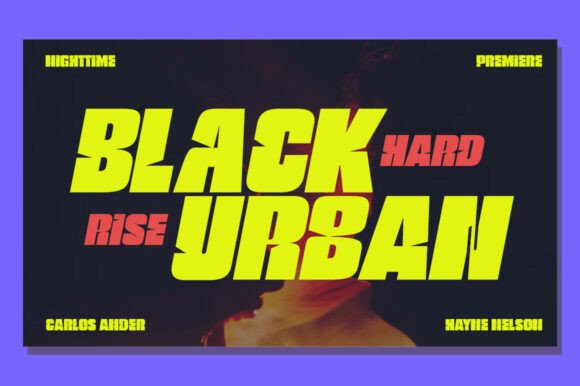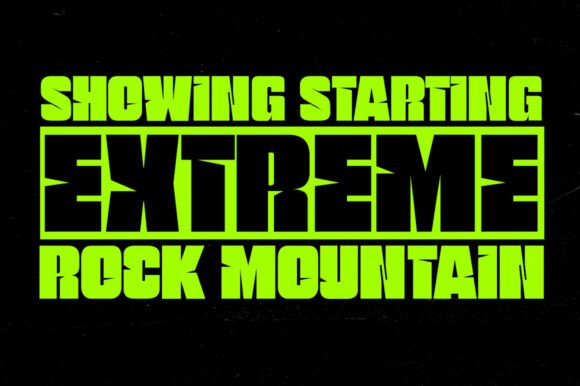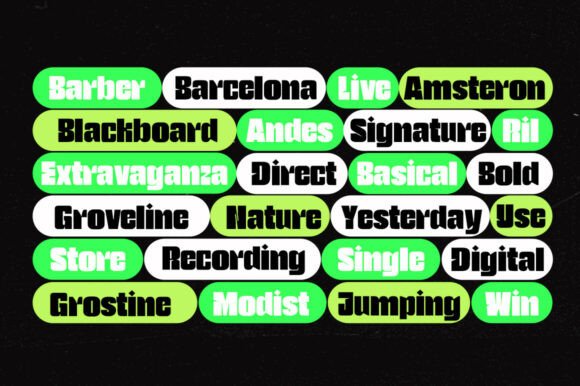
Introduction to Ravedo Font
Have you ever been in the middle of a creative project, searching for the perfect font to bring your vision to life? You’ve scrolled through countless design resources, but nothing seems to capture the essence of your idea. That’s where the Ravedo Font comes in – a game-changing addition to your design arsenal.
This captivating sporty style font is perfect for sports and posters, exuding a sense of energy and dynamism that’s sure to elevate your designs. With its contemporary design, you’ll be able to create classy and stable looks that are sure to impress. And the best part? The Ravedo Font is available for free download, making it an accessible and valuable resource for designers of all levels.
Whether you’re working on a high-quality design project or simply looking for a new way to express yourself, the Ravedo Font is an excellent choice. Its transparent background and versatile style make it easy to combine with your creativity, resulting in unique and eye-catching designs that are sure to stand out.
Key Features of Ravedo Font
- High-quality design resource ideal for creative projects requiring a unique touch
- Features a transparent background, allowing for seamless integration into various design elements
- Perfect for designers seeking a modern and elegant font to elevate their work
- Unique characteristics include its clean lines, rounded edges, and subtle flair, making it a standout design resource
Honest Review: Ravedo Font
I recently had the chance to work with the Ravedo Font, and I must say it’s been a great addition to my design resources. This font has a unique and modern feel that’s perfect for creative projects where I need something fresh and exciting.
- ✨ High-quality design that looks professional and polished
- ✨ Easy to read and use, even at smaller font sizes
- ✨ Perfect for designs that need a bit of flair and personality
- ⚠️ Limited support for transparent backgrounds, which can make it tricky to use in certain design scenarios
- ⚠️ Not as versatile as some other fonts, which can limit its use in certain projects
Overall, I’m really impressed with the Ravedo Font. It’s a great addition to any designer’s toolkit, and I’m excited to use it in my next creative project. Whether you’re working on a personal project or a client design, this font is definitely worth considering.
Tips for Getting the Most Out of Ravedo Font
To get the most out of the Ravedo Font, experiment with different font sizes, colors, and layering techniques. You can also combine the font with other design elements to create unique and eye-catching designs.
The Ravedo Font is ideal for a variety of creative projects, including social media graphics, presentations, and marketing materials. Its high-quality design and transparent background make it a versatile and useful design resource.